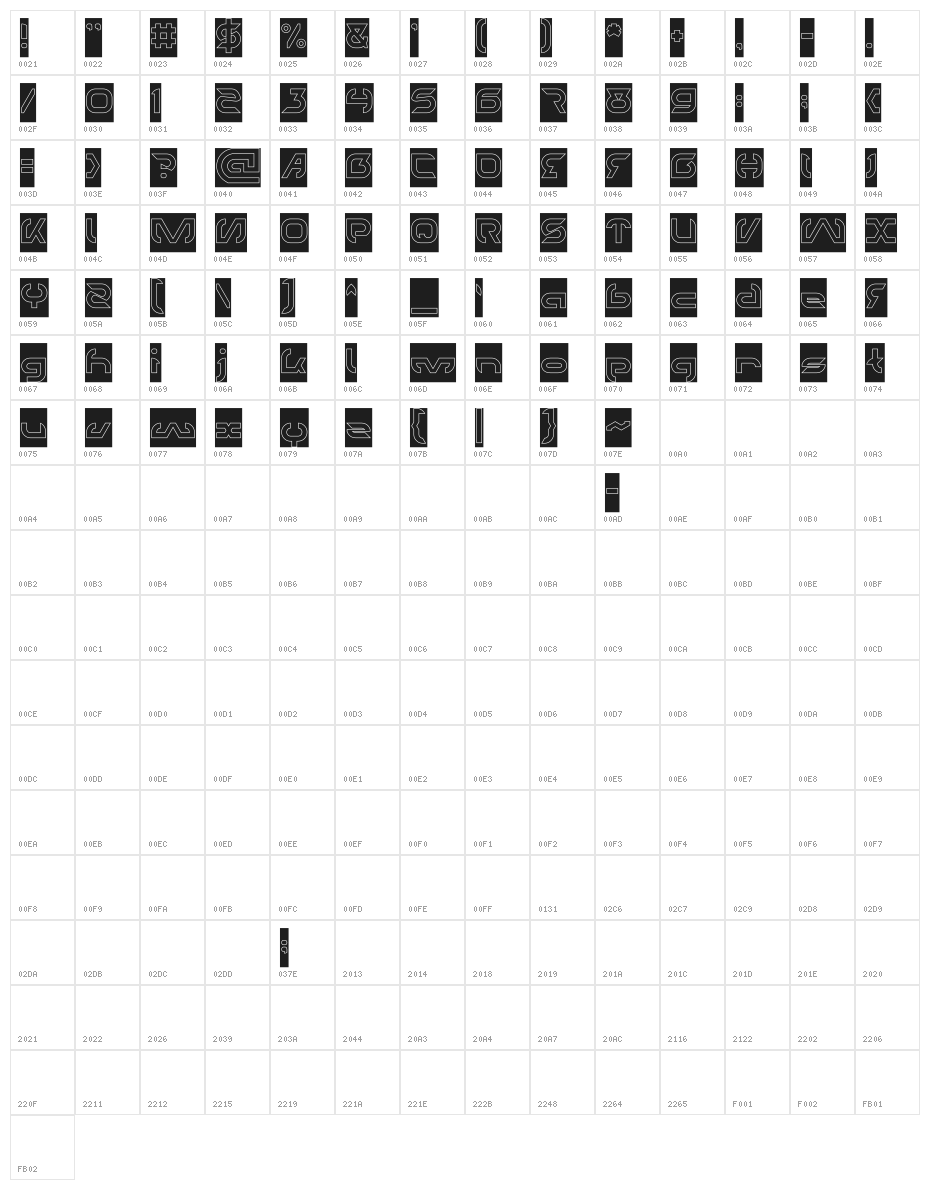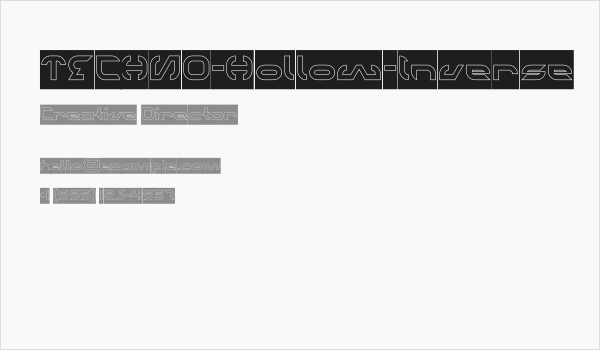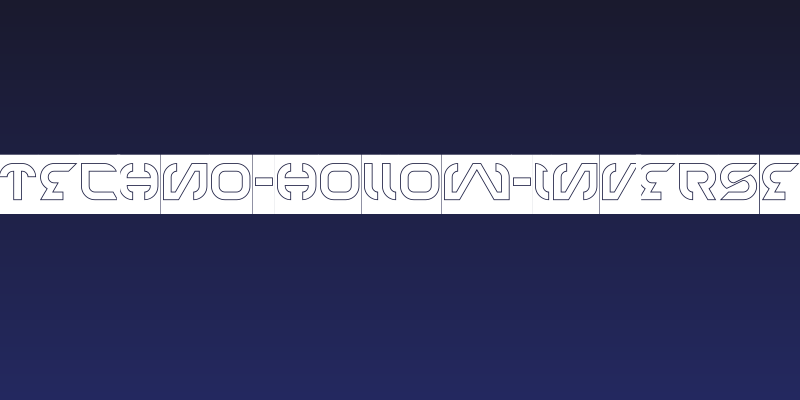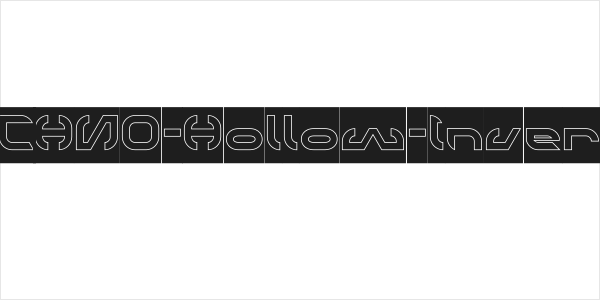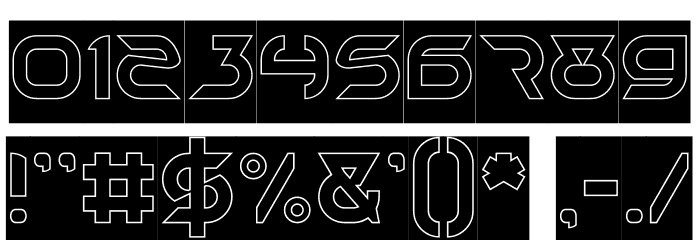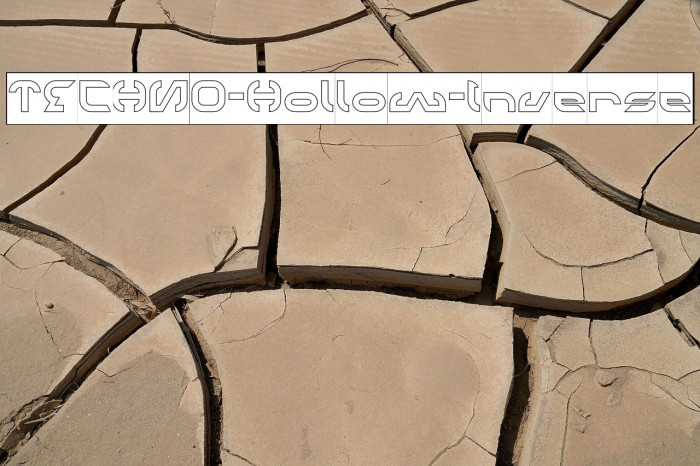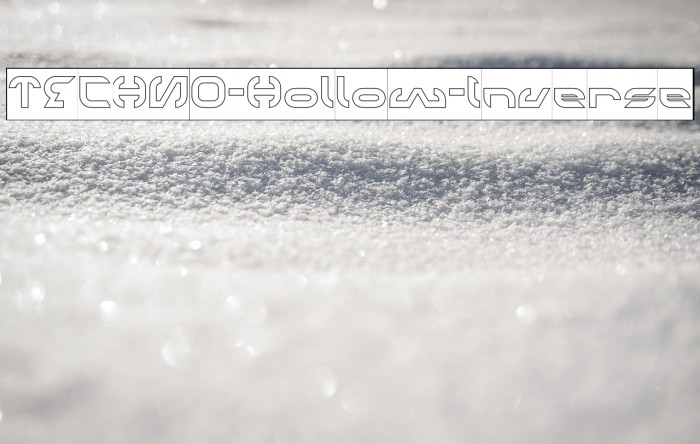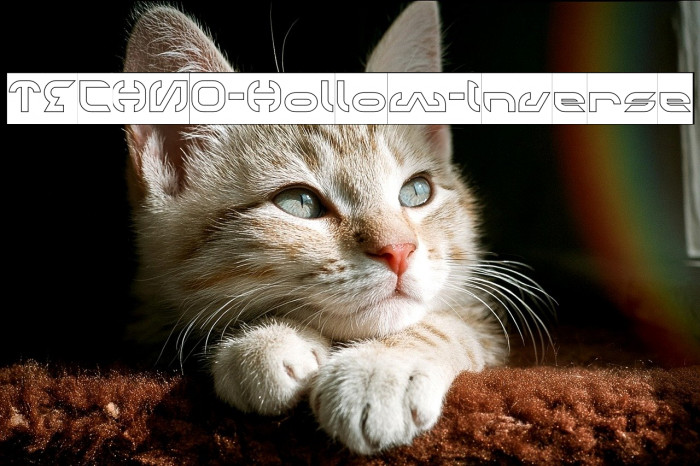
TECHNO-Hollow-Inverse Font
TECHNO-Hollow-Inverse Description
This font features a futuristic and technological design with hollow, inverse letterforms. The characters are outlined, creating a striking visual effect that emphasizes their geometric shapes. The uppercase and lowercase letters maintain a consistent style, with sharp angles and clean lines that suggest a sense of precision and modernity. The numerals and special characters follow the same design principles, ensuring uniformity across all glyphs. This font's unique style makes it ideal for projects that require a high-tech or digital aesthetic.
| Proposed Projects | Ideal for technology branding, sci-fi posters, digital interfaces, and video game titles. |